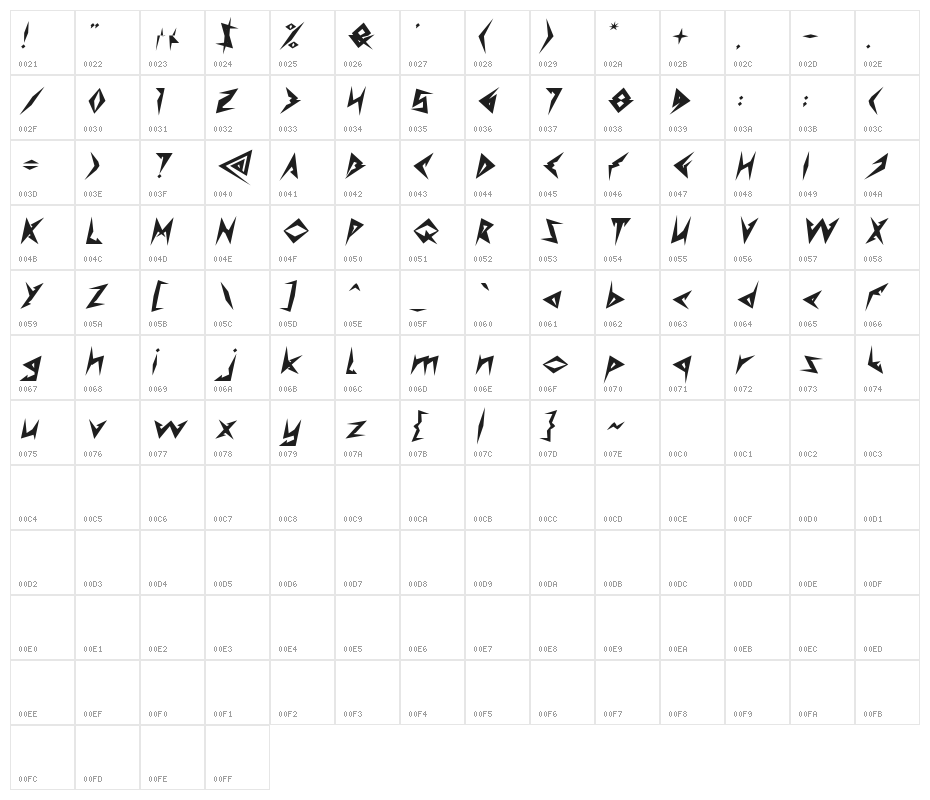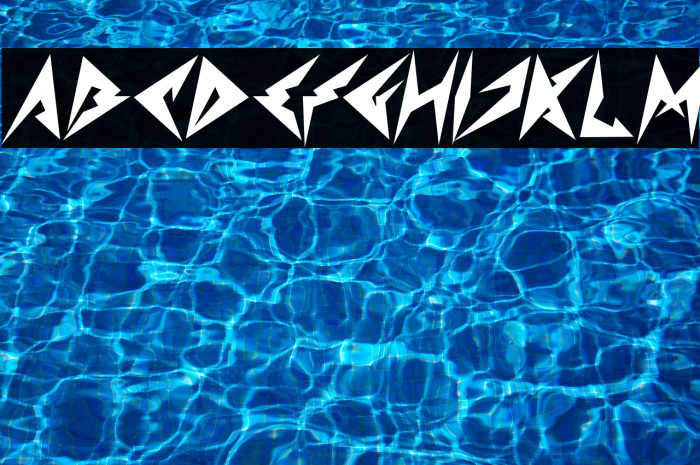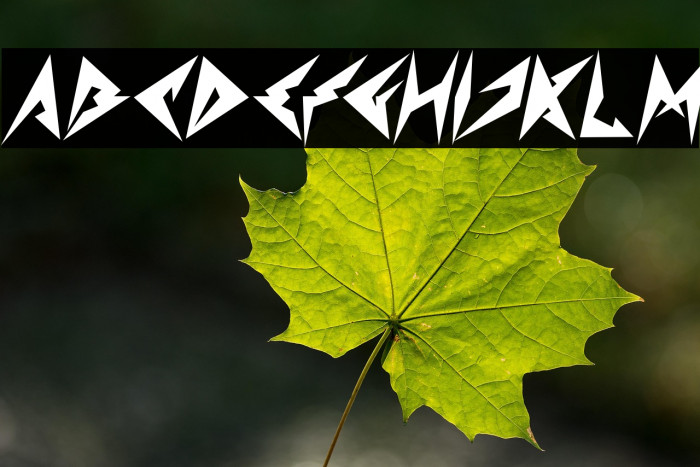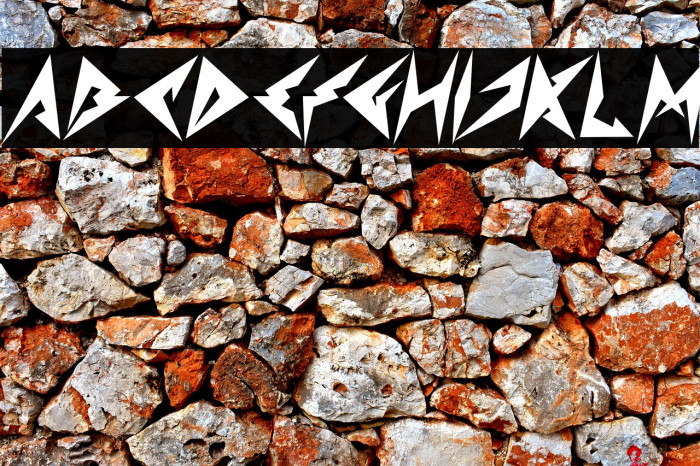
Shinobi Ninja Bold Italic Font
Shinobi Ninja Bold Italic Description
This font features a bold and dynamic design with sharp, angular edges and a distinctly geometric style. Each character is crafted with a sense of movement and energy, reminiscent of ninja-like agility and stealth. The bold italic nature of the font adds a sense of urgency and action, making it ideal for projects that require a strong visual impact. The uppercase and lowercase letters maintain a consistent style, while the numbers and special characters complement the overall aesthetic. The font's unique appearance makes it suitable for creative and unconventional designs.
Proposed ProjectsIdeal for video game titles, movie posters, comic book covers, and edgy branding projects.